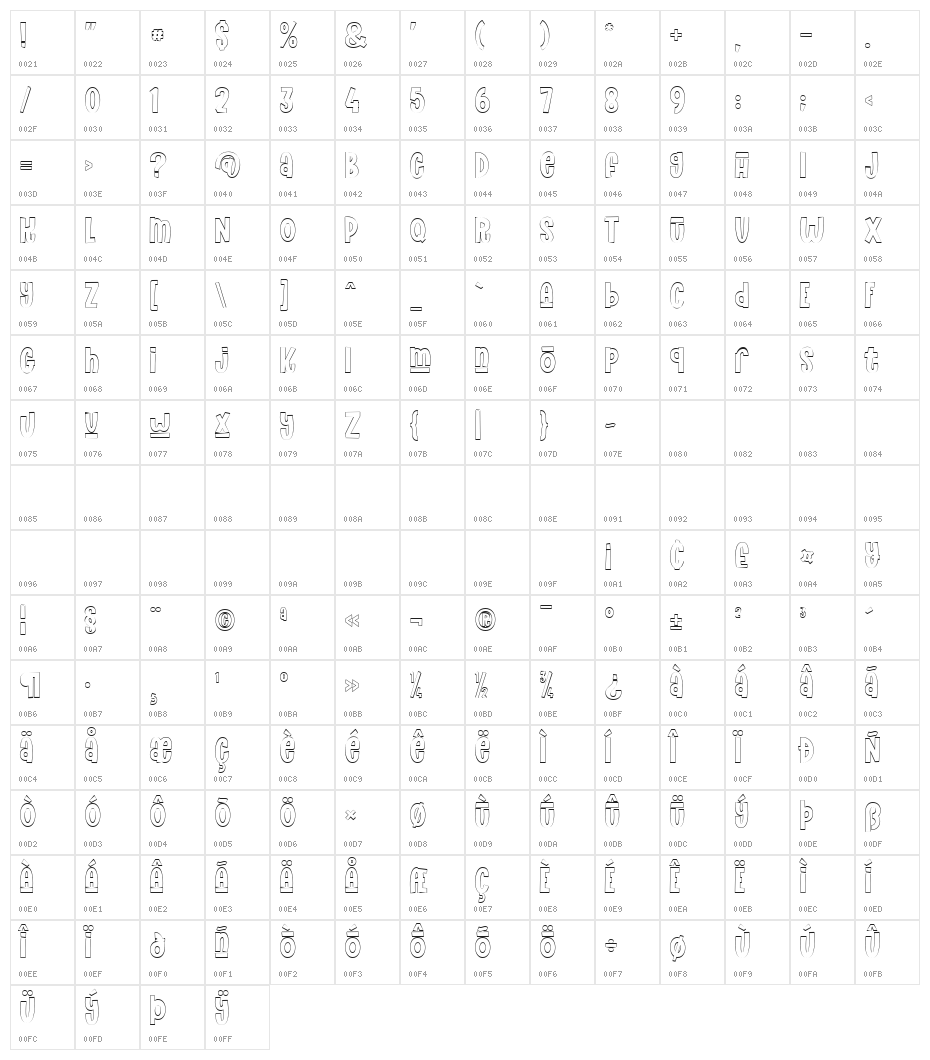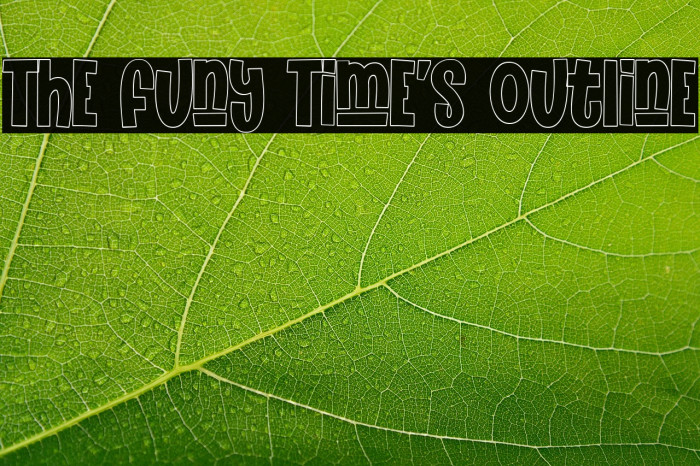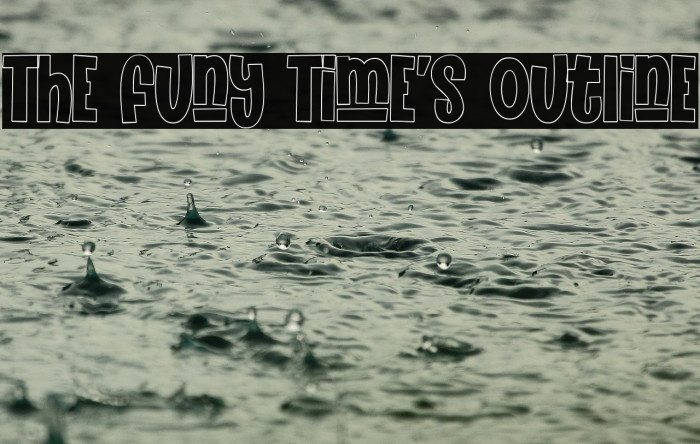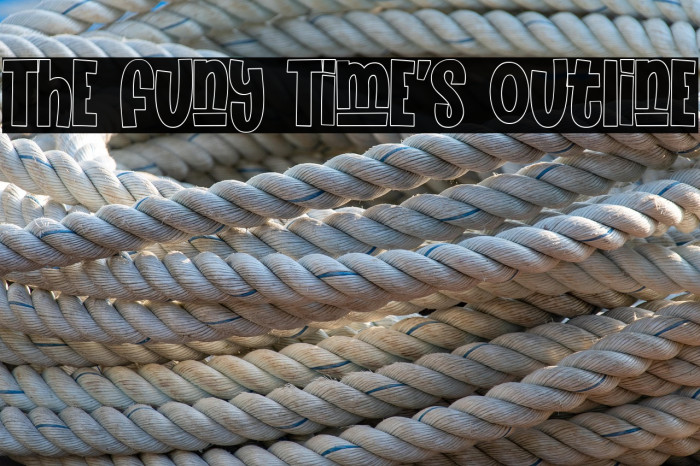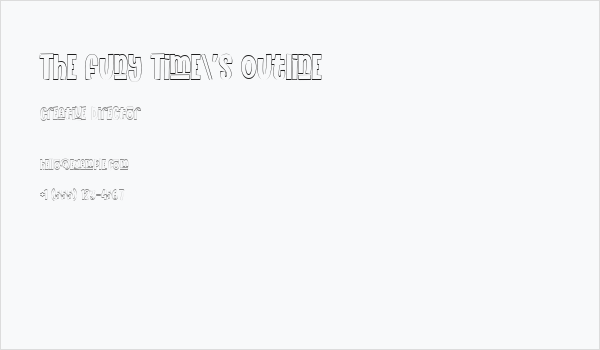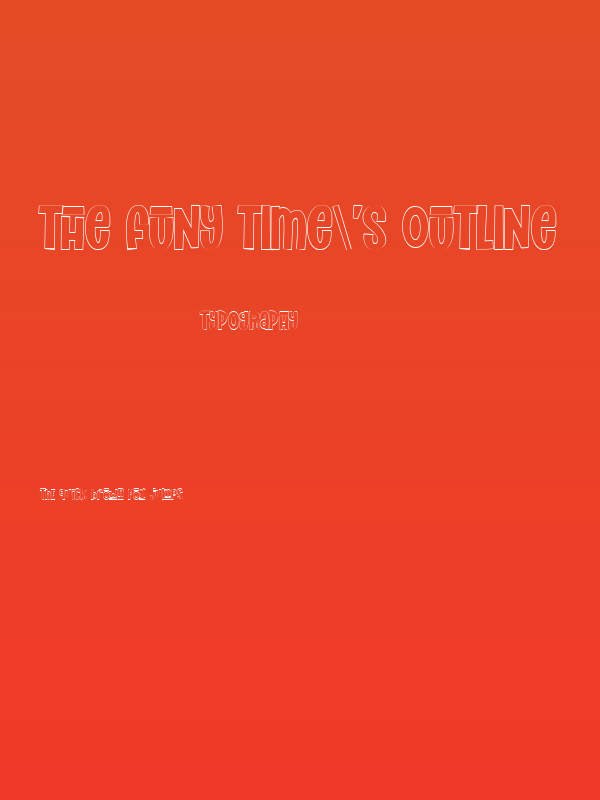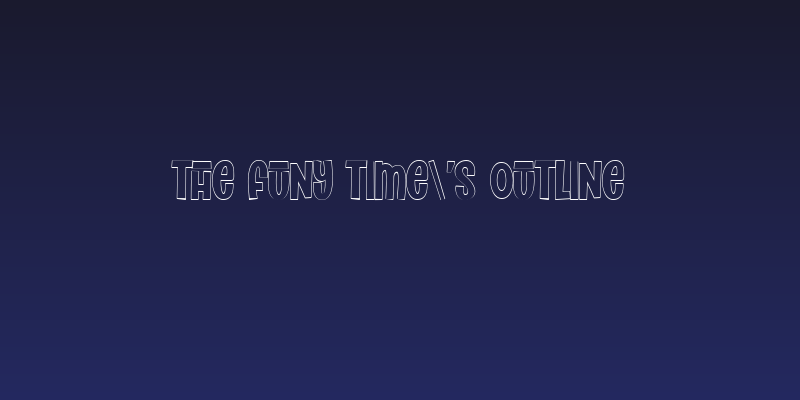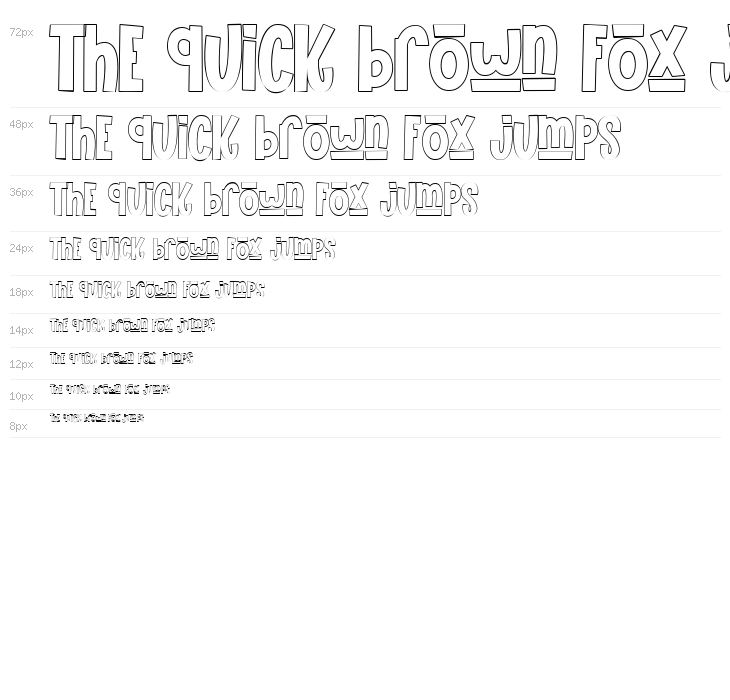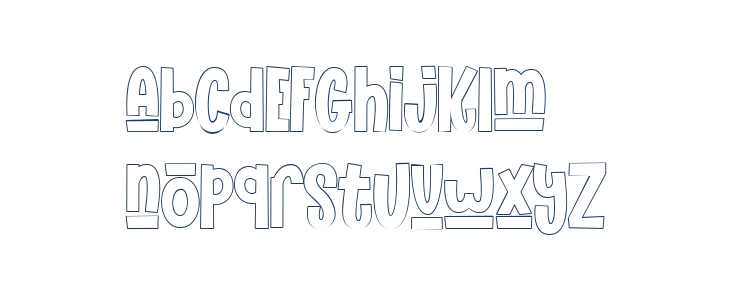
The Funy Time's Outline Font
The Funy Time's Outline Description
This playful and whimsical font features bold, outlined characters with a cartoonish flair. Each letter is crafted with a thick outline, giving it a fun and lively appearance. The characters are slightly rounded, adding to the approachable and friendly vibe. The font maintains a consistent weight throughout, making it easy to read while still retaining its unique style. The spacing between characters is normal, ensuring legibility without compromising its decorative nature. This font is perfect for projects that require a touch of humor and creativity, such as children's books, comic strips, or playful branding materials.
| Proposed Projects | Ideal for children's books, comic strips, playful branding, and creative posters. |